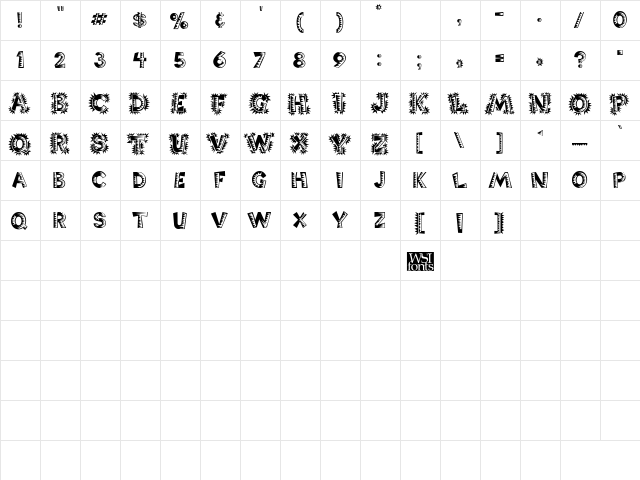
Chorizo Regular Font Preview
Chorizo Regular
Design Context for Chorizo Typeface
Chorizo is a composed and adaptable typeface that performs quietly and consistently across a wide range of design contexts.